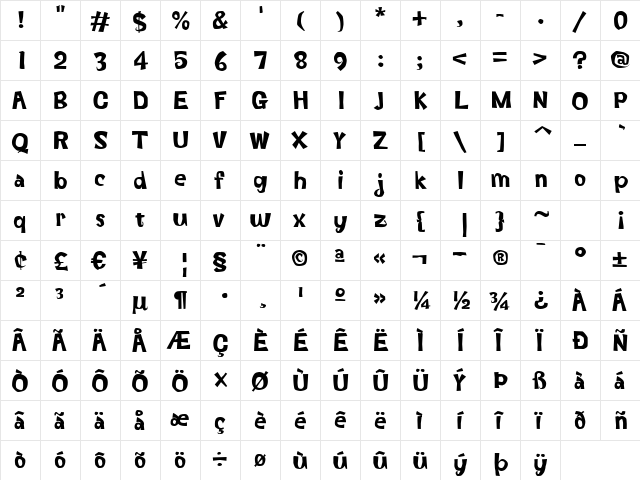
SpleenyDecafGD Regular
Design Context for SpleenyDecafGD Typeface
SpleenyDecafGD is a composed and adaptable typeface that performs quietly and consistently across a wide range of design contexts.